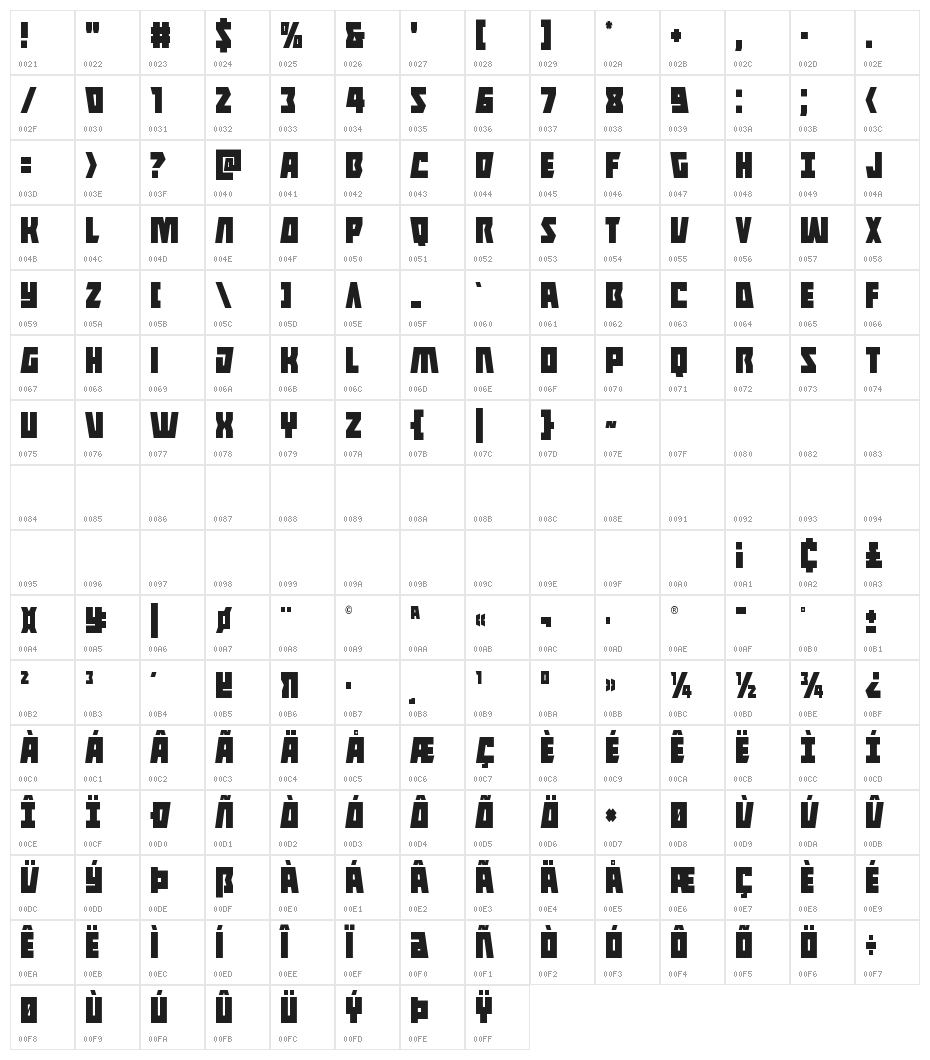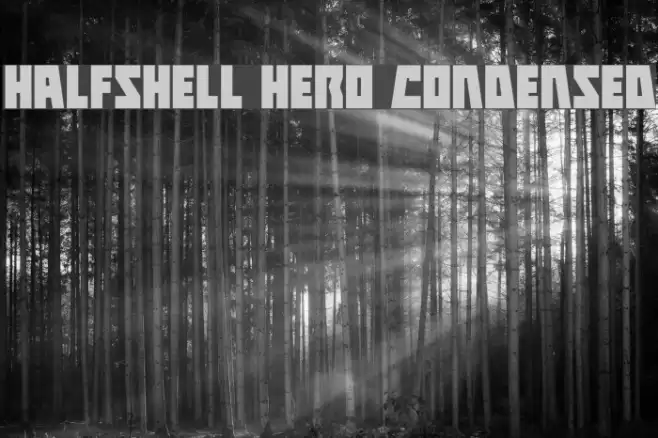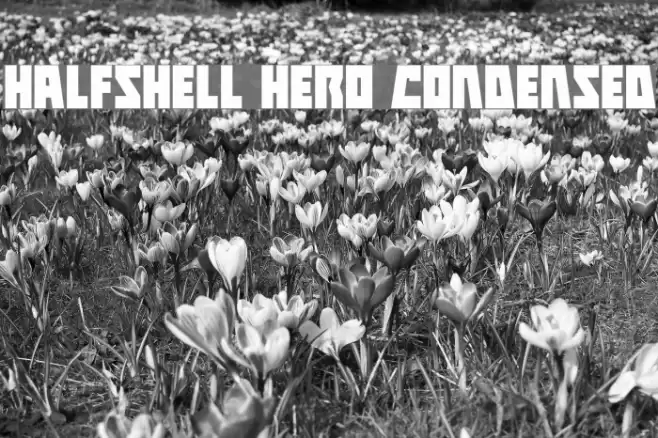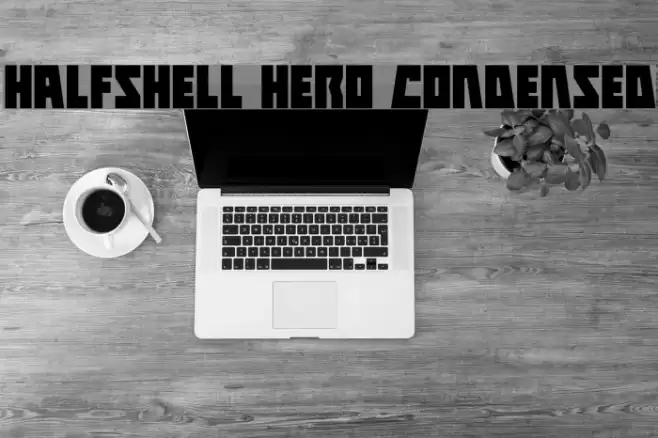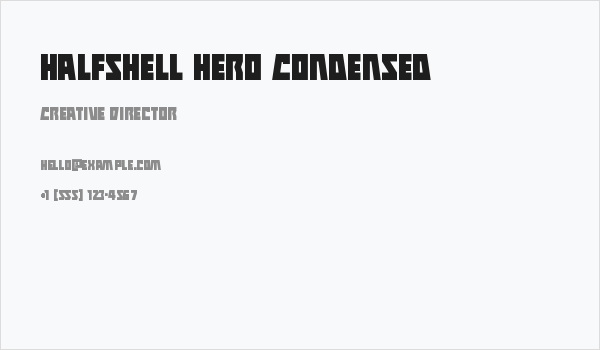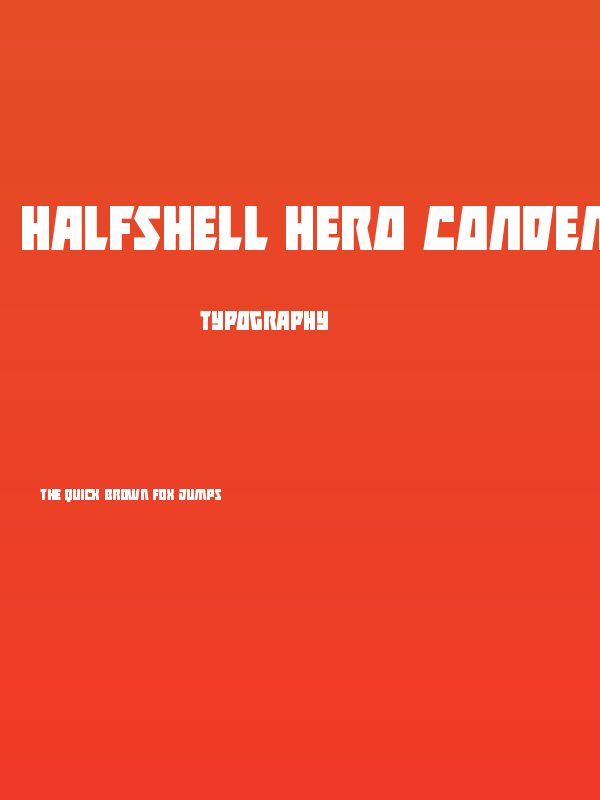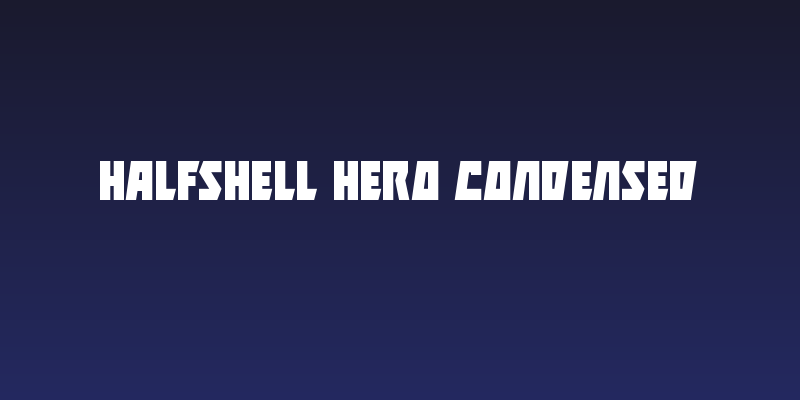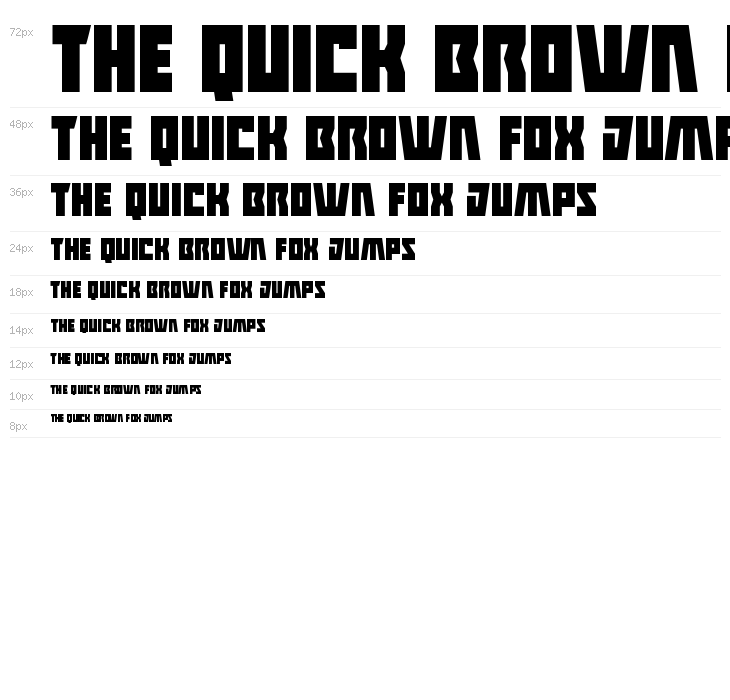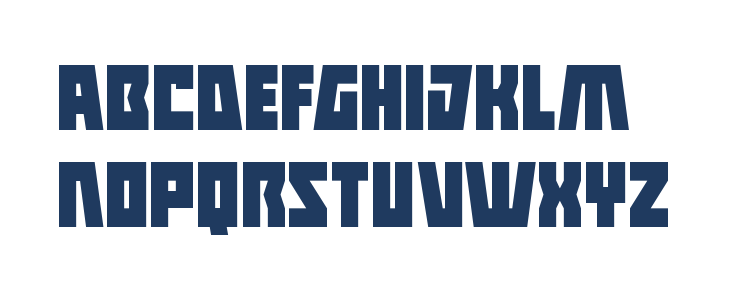
Halfshell Hero Condensed Font
Halfshell Hero Condensed Description
This font features a bold and dynamic style with a distinctly angular and geometric design. The characters are constructed with sharp edges and a condensed form, giving it a strong and impactful presence. The uppercase letters are particularly striking, with a uniform height and width that emphasizes their boldness. The numbers and special characters maintain the same angular aesthetic, ensuring consistency across all glyphs. This font's unique style makes it ideal for projects that require a modern and edgy look.
| Proposed Projects | Ideal for use in posters, logos, video game graphics, and any project requiring a strong, modern aesthetic. |